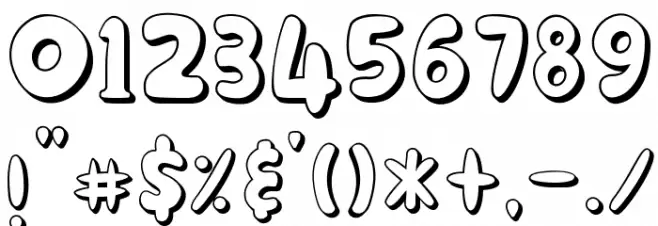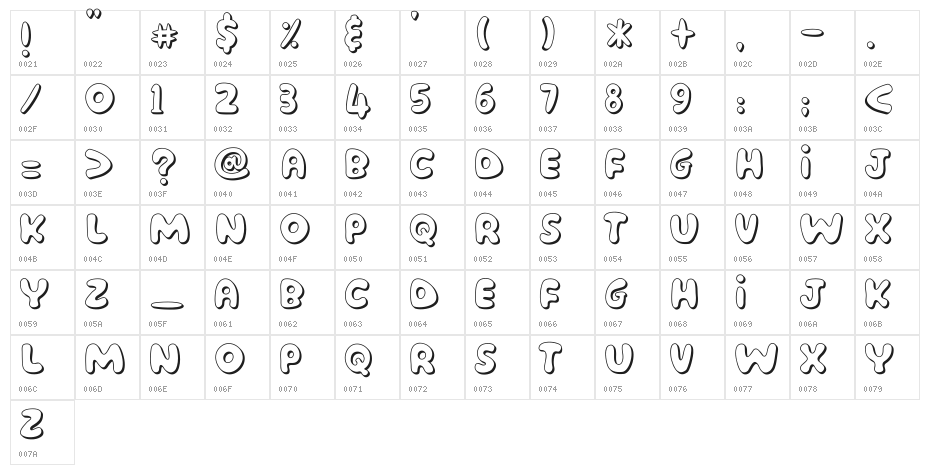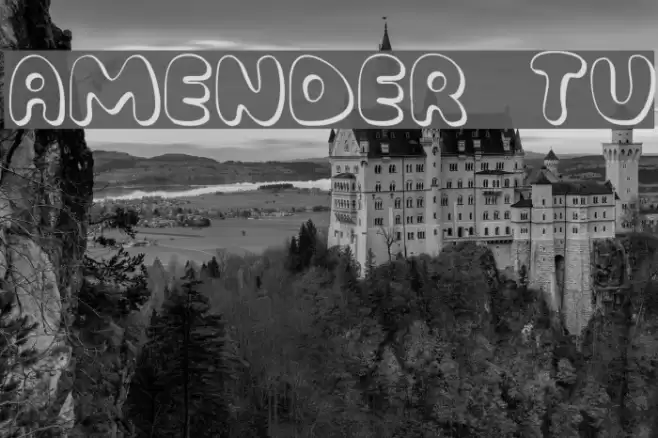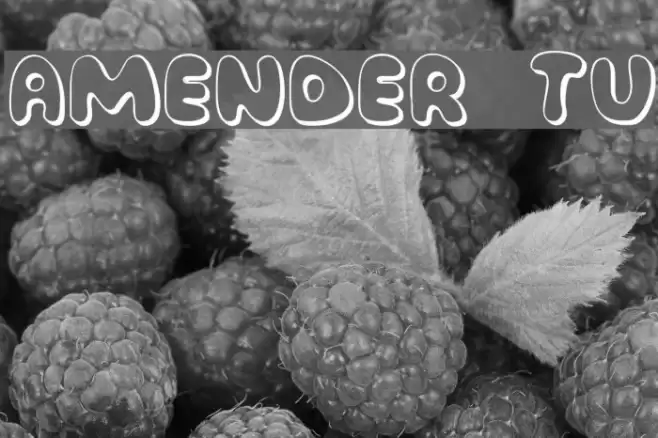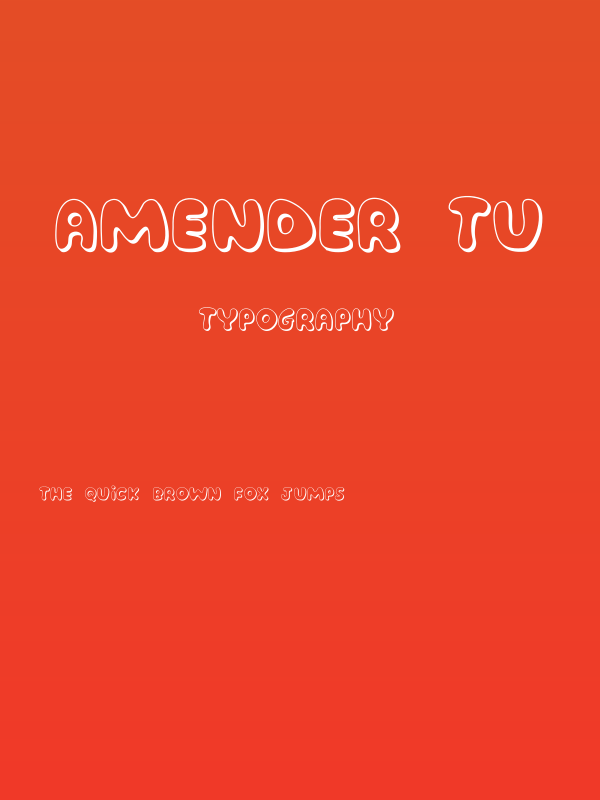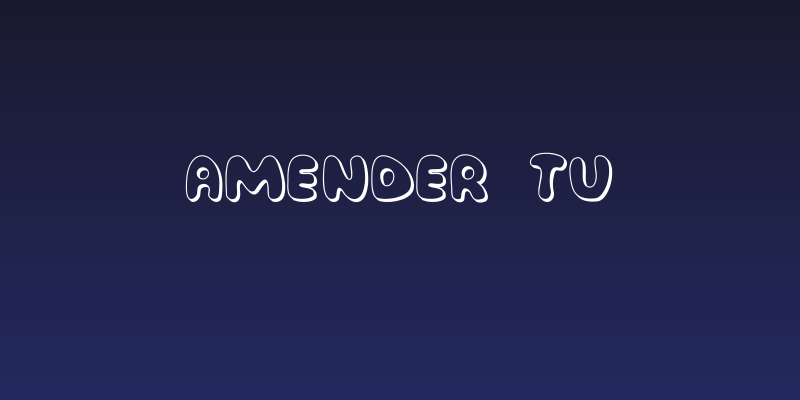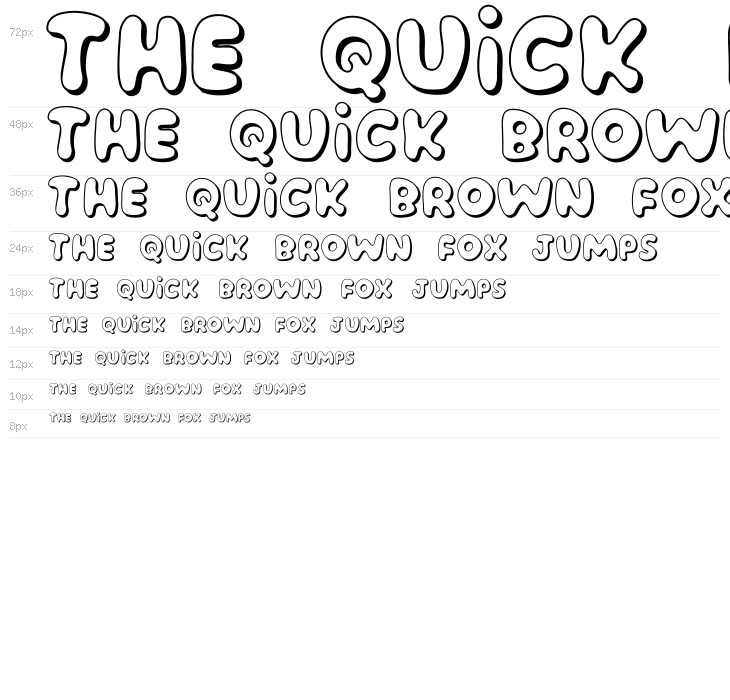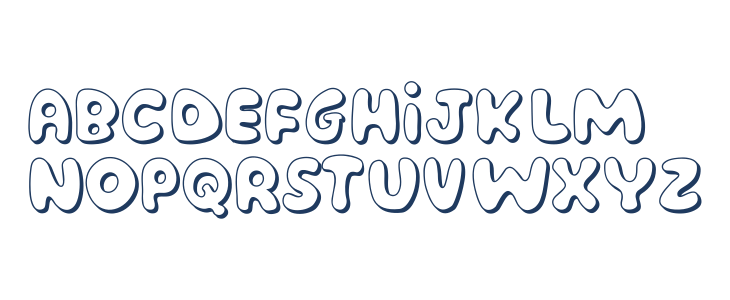
Amender Tu Font
Amender Tu Description
This playful and bold font features a bubble-like appearance with thick, rounded edges that give it a friendly and approachable feel. The characters are outlined, creating a hollow effect that adds a layer of depth and dimension. The uppercase and lowercase letters maintain a consistent style, with a slightly exaggerated width that enhances their whimsical nature. Numbers and special characters are designed to match the overall aesthetic, ensuring a cohesive look across all text. This font is perfect for projects that require a fun and lively touch, such as children's books, party invitations, or playful branding.
| Proposed Projects | Ideal for children's books, party invitations, playful branding, and fun posters. |